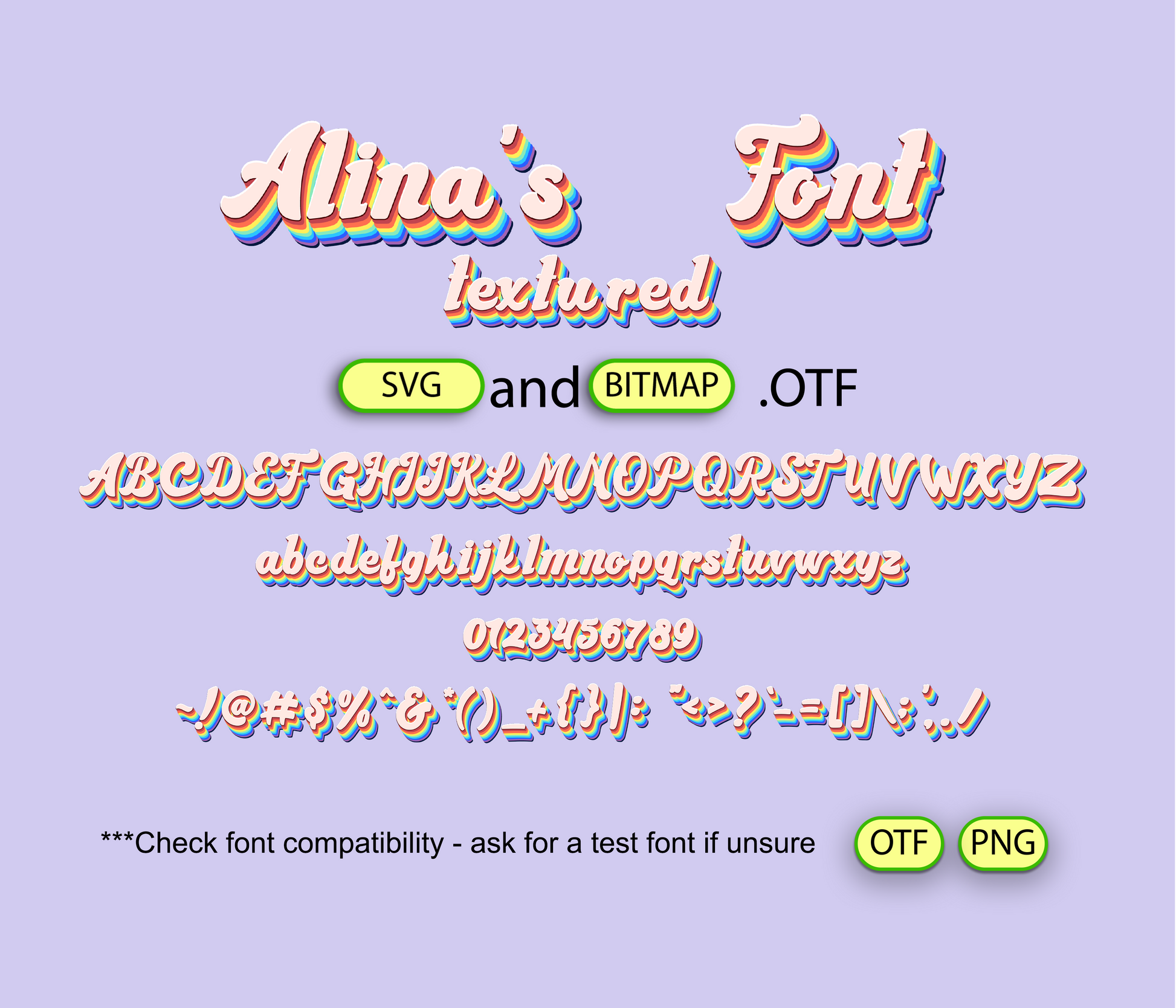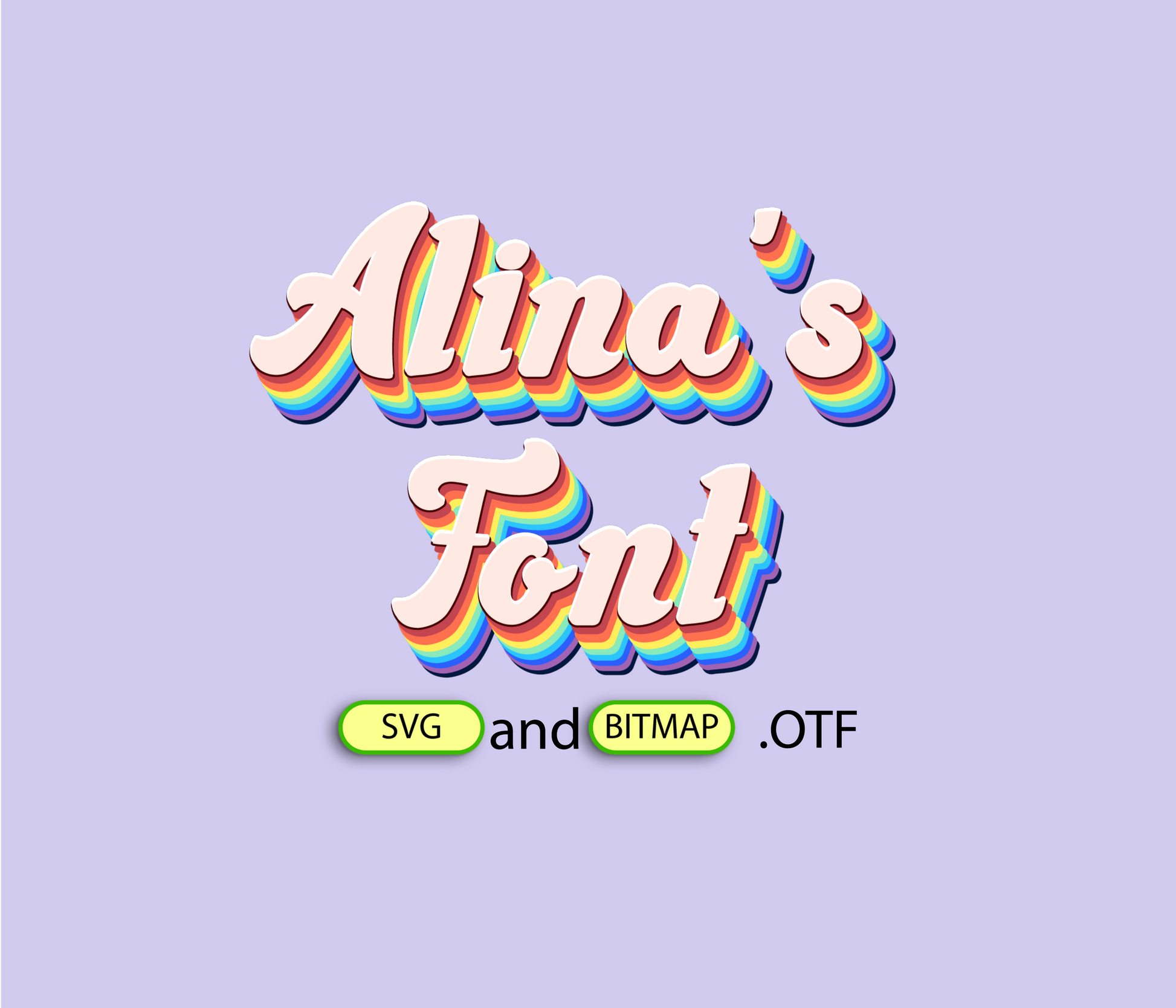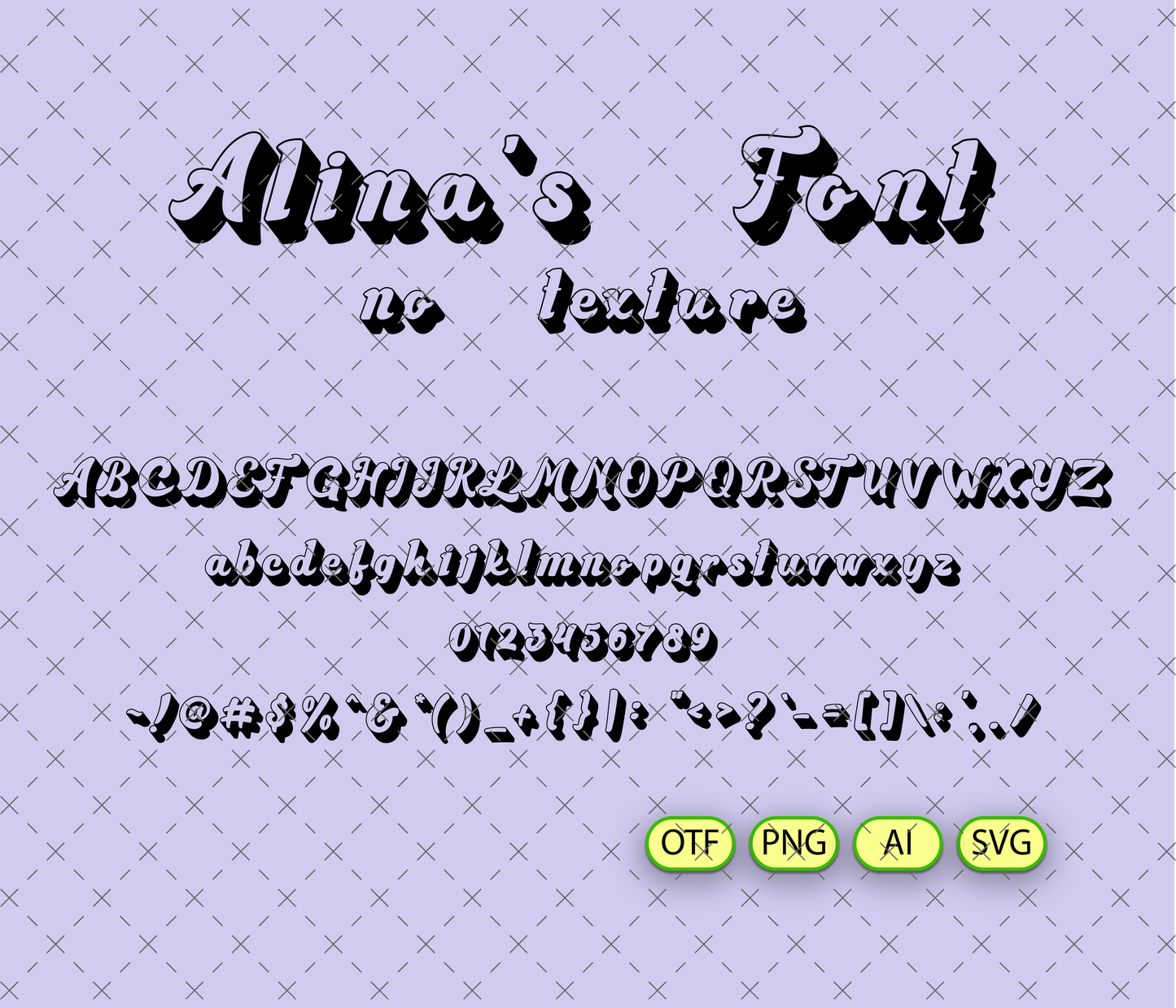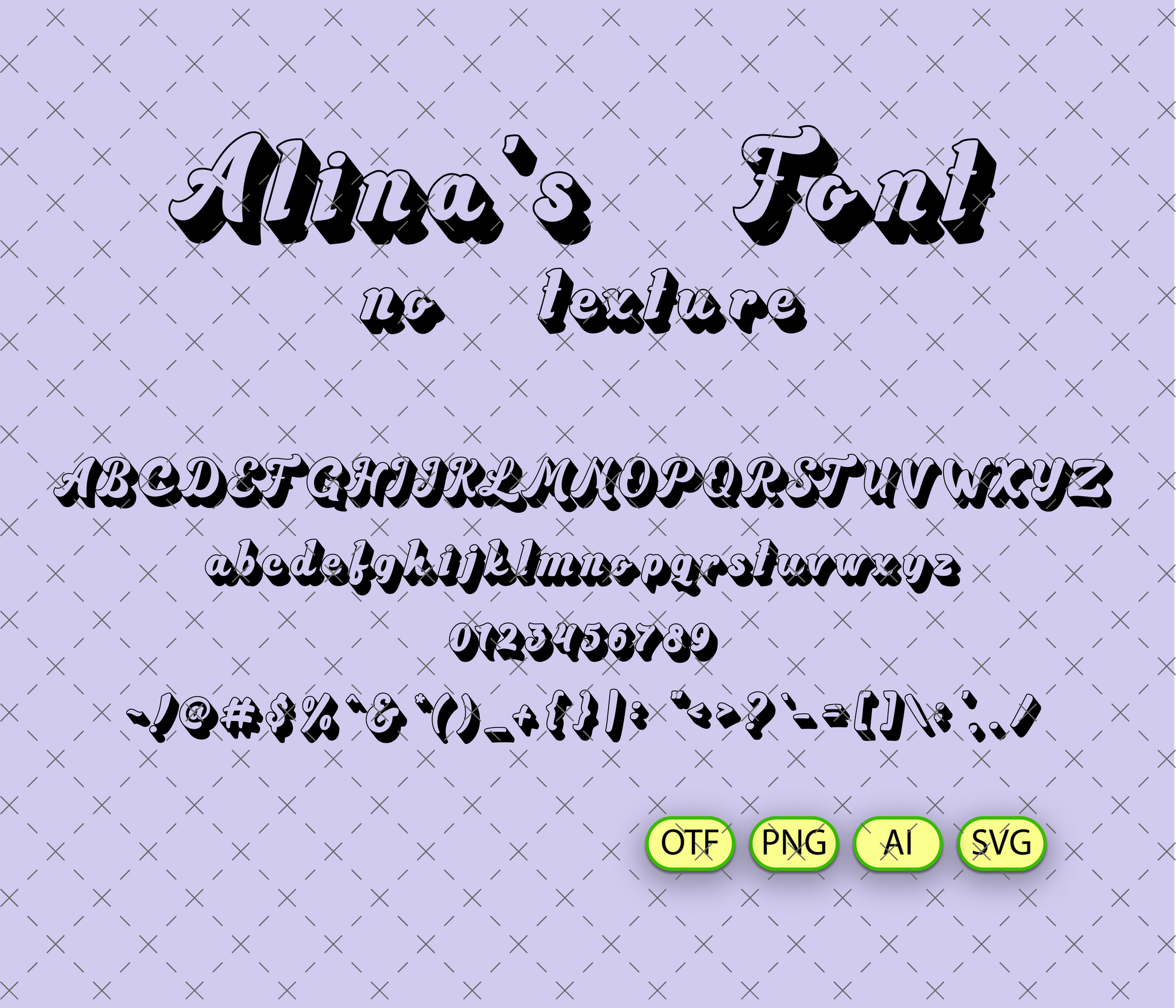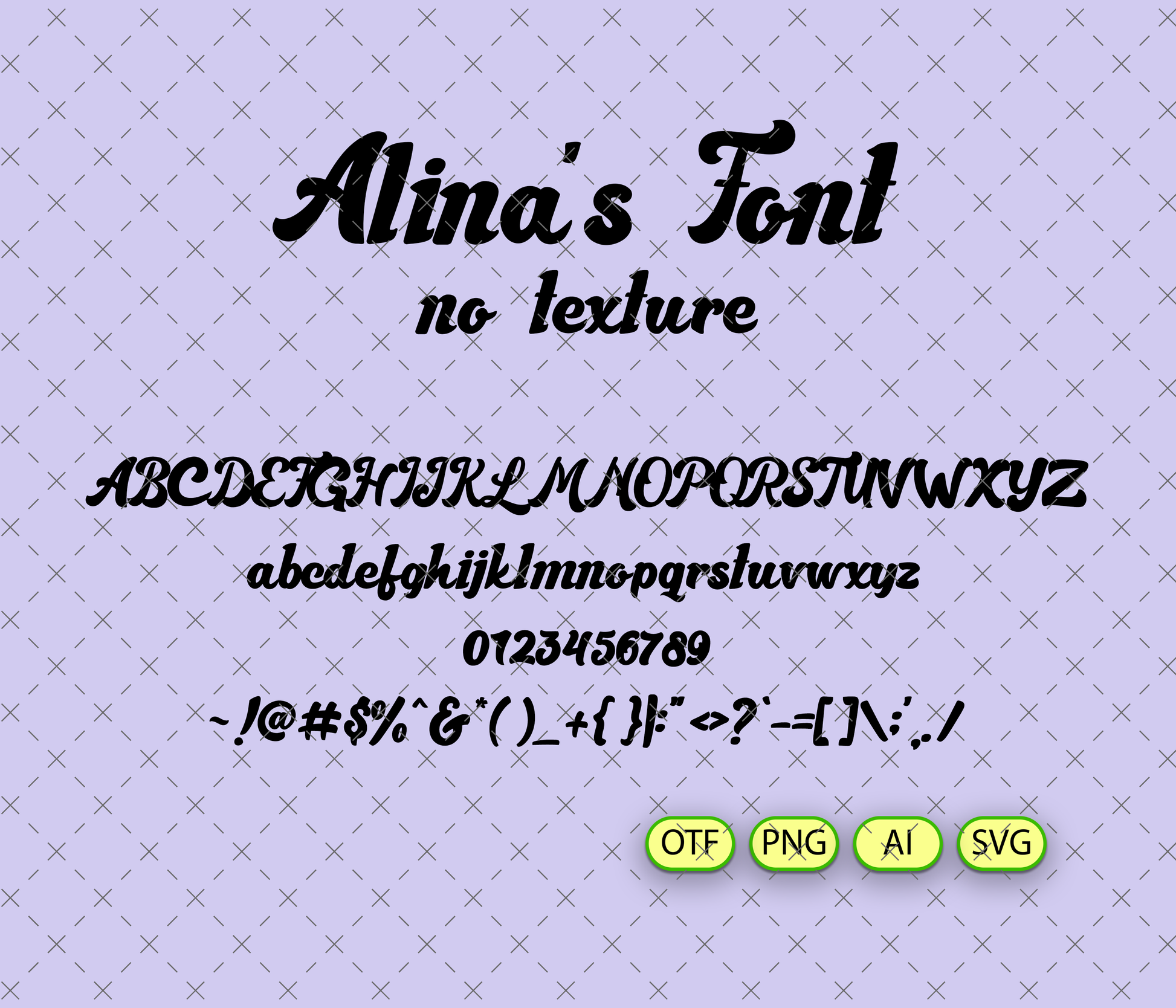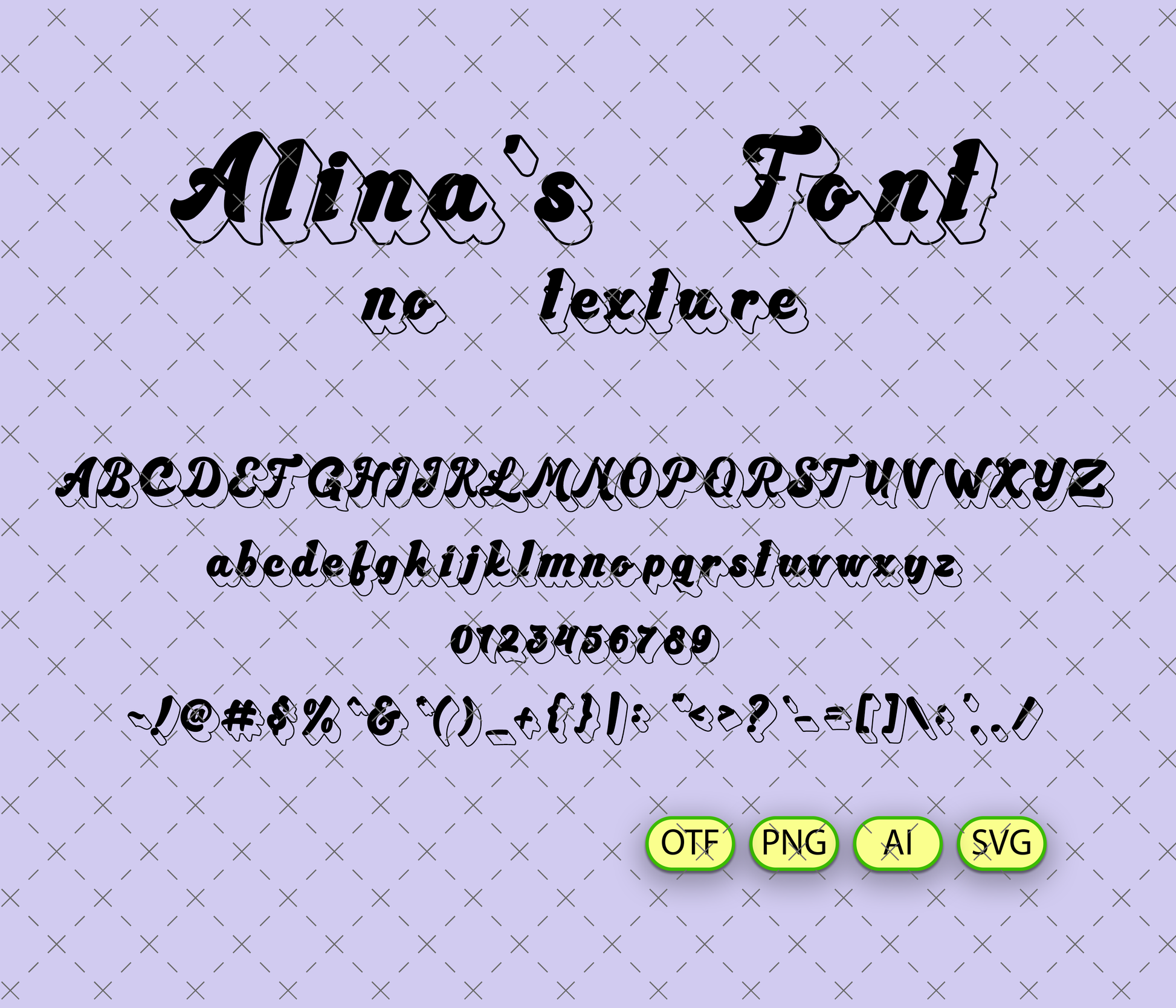
Retro Rainbow Color Font Textured
Step into a vibrant spectrum of expressive celebration with our Retro Rainbow Color Font Textured, capturing the joyful pulse of retro aesthetics blended with modern pride-inspired energy. Designed to echo the warmth of vintage print culture and the bold confidence of rainbow celebration design, this font brings layered color richness and textured charm into every letterform. Perfect for Pride Month creatives, inclusive branding specialists, festival designers, social media content creators, and nostalgic typography lovers, this font transforms words into radiant statements of identity, unity, and celebration.
Create eye-catching posters, expressive merchandise, digital campaigns, and editorial layouts that shine with the unmistakable glow of retro rainbow storytelling.
Vibrant Typography for Pride & Retro-Inspired Design
Our Retro Rainbow Color Font Textured features bold, expressive letterforms infused with layered rainbow gradients and subtle retro grain textures, evoking the spirit of vintage celebration posters and modern pride aesthetics. Each character radiates warmth, diversity, and expressive freedom, making your designs instantly more impactful and emotionally resonant.
Pride Month Campaigns:
Design powerful posters, banners, and social content that celebrate identity, equality, and inclusion with vibrant retro rainbow energy. -
Merchandise Design:
Perfect for apparel, tote bags, stickers, posters, and collectible items that showcase bold pride-inspired typography with a nostalgic twist. -
Digital Media:
Enhance websites, social platforms, and video content with colorful headers and typography that stand out with expressive retro rainbow styling. -
Creative Projects:
Add a dynamic, celebratory touch to illustrations, editorial layouts, and artistic compositions inspired by diversity, unity, and self-expression. -
Personal Expression:
Bring color and meaning into journals, scrapbooks, handmade gifts, and personal designs that celebrate individuality and connection.
While many look for quick online generators to replicate rainbow typography effects, nothing compares to the authenticity and depth of a professionally crafted textured font. Our Retro Rainbow Font delivers carefully designed color harmony, retro-inspired texture, and consistent visual impact that generators simply cannot replicate.
Rooted in the spirit of vintage celebration design and elevated through modern inclusivity, the Retro Rainbow Color Font Textured transforms words into radiant expressions of identity, pride, and creativity. Whether you're building Pride Month visuals, designing expressive branding, or adding nostalgic vibrancy to personal work, this font brings every message to life with color, texture, and meaning.